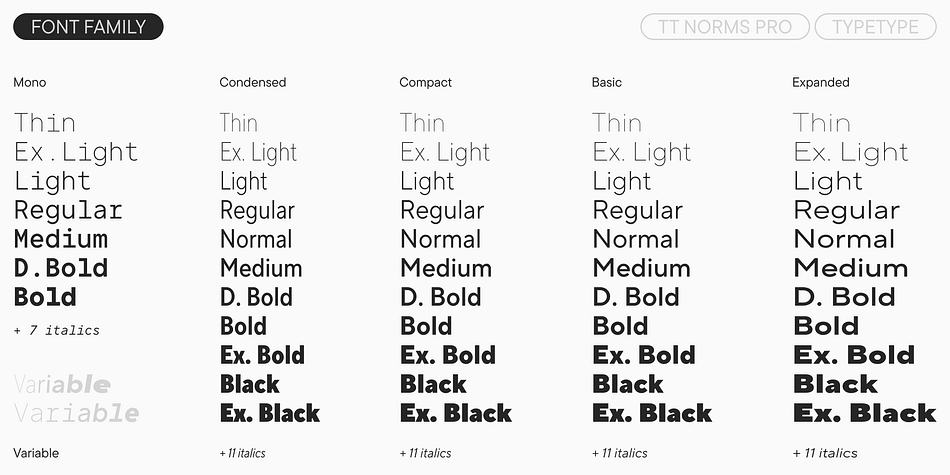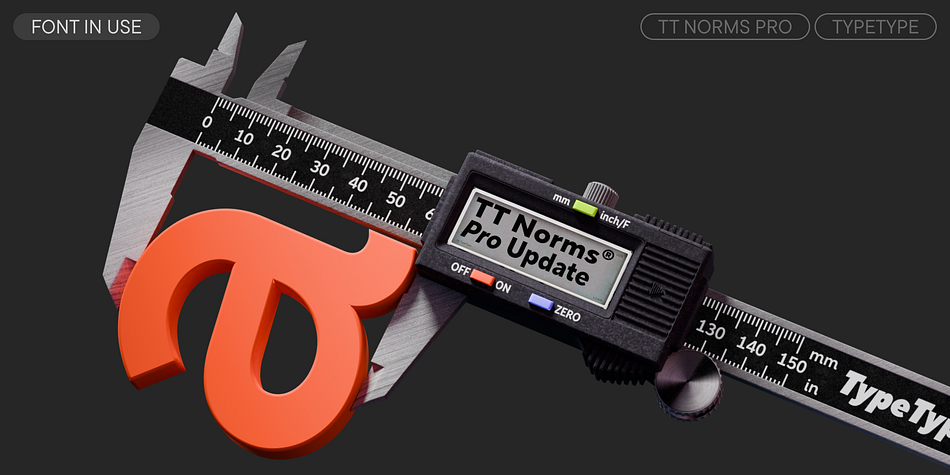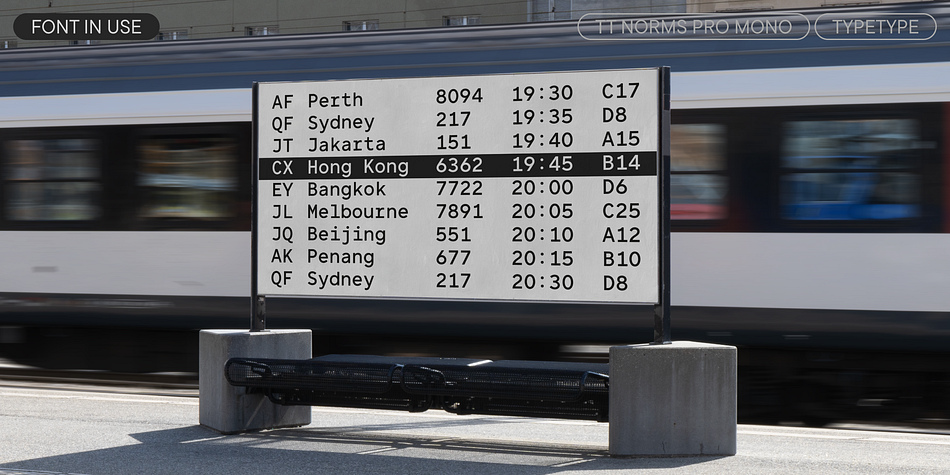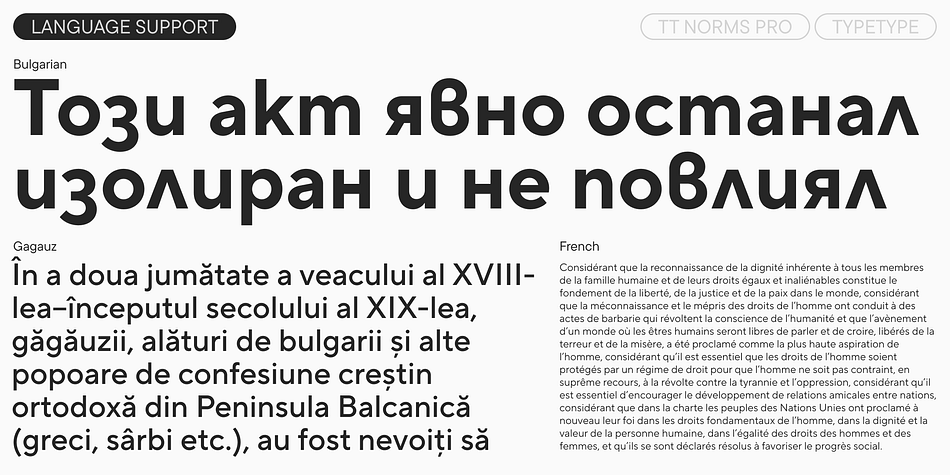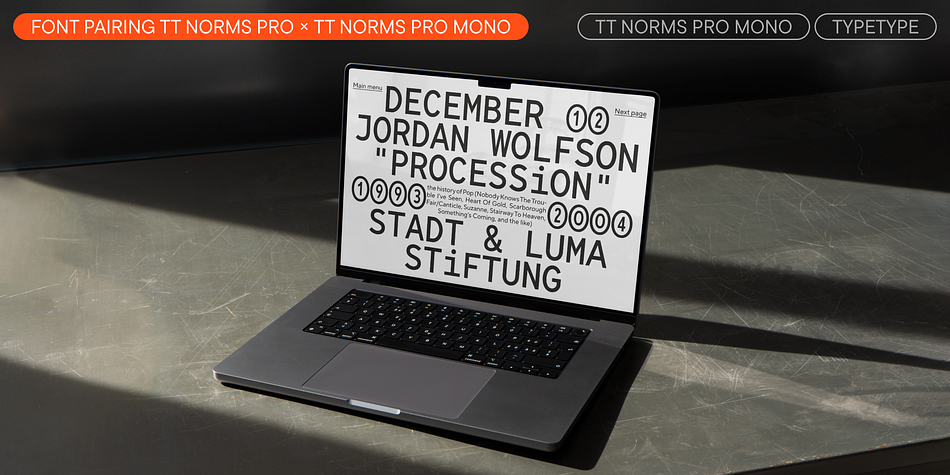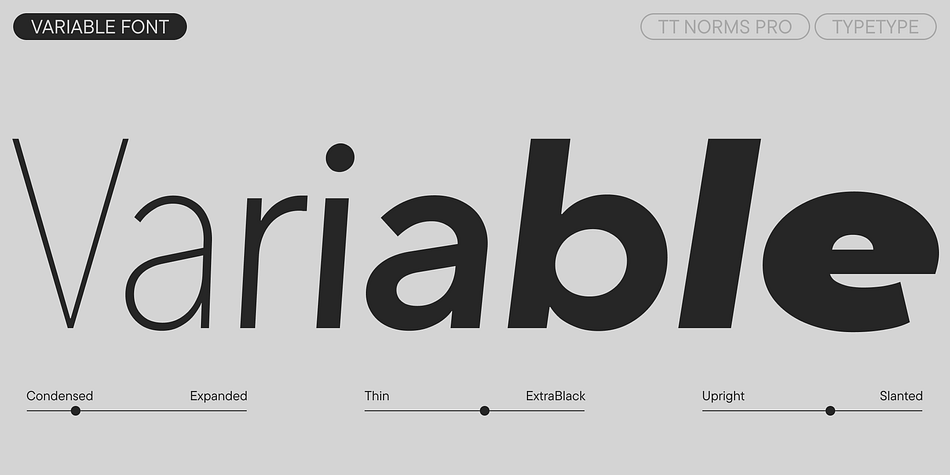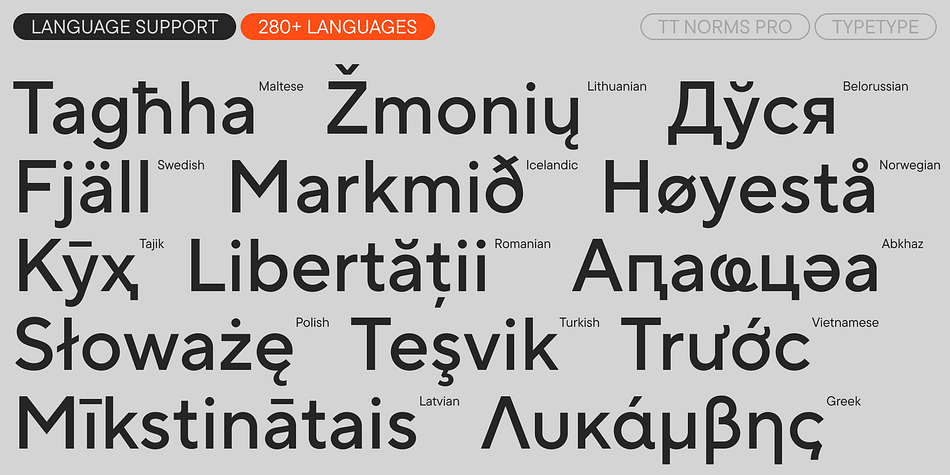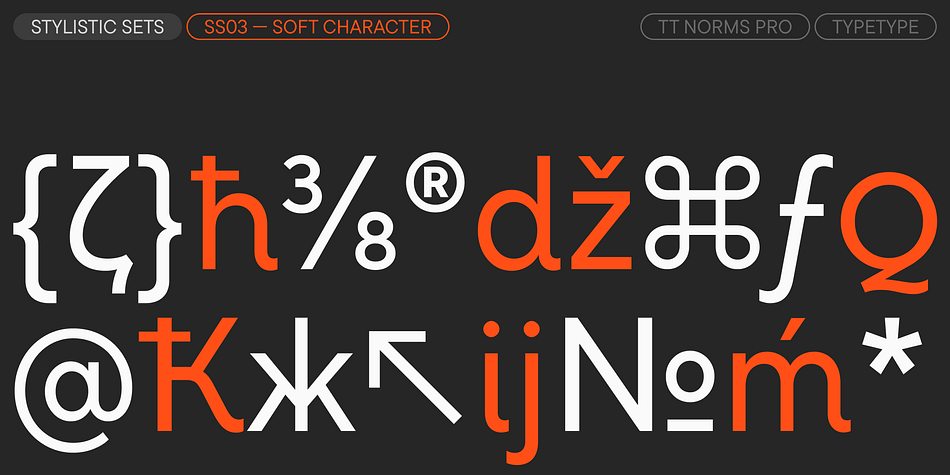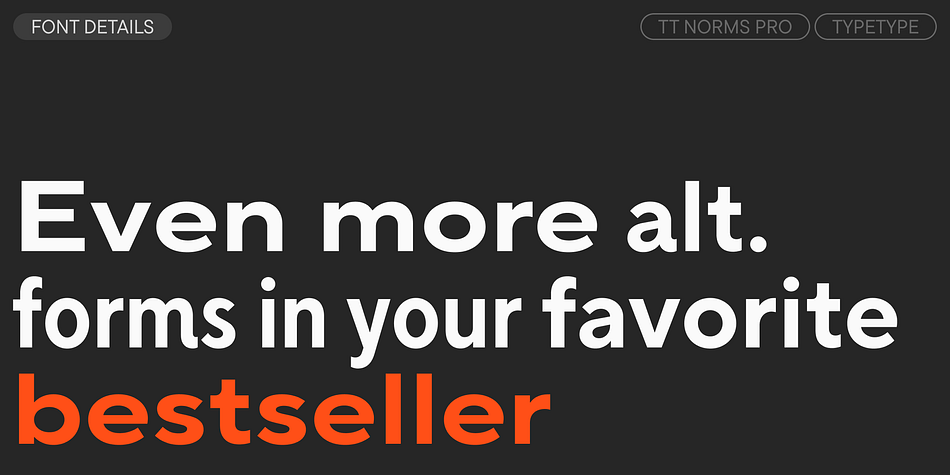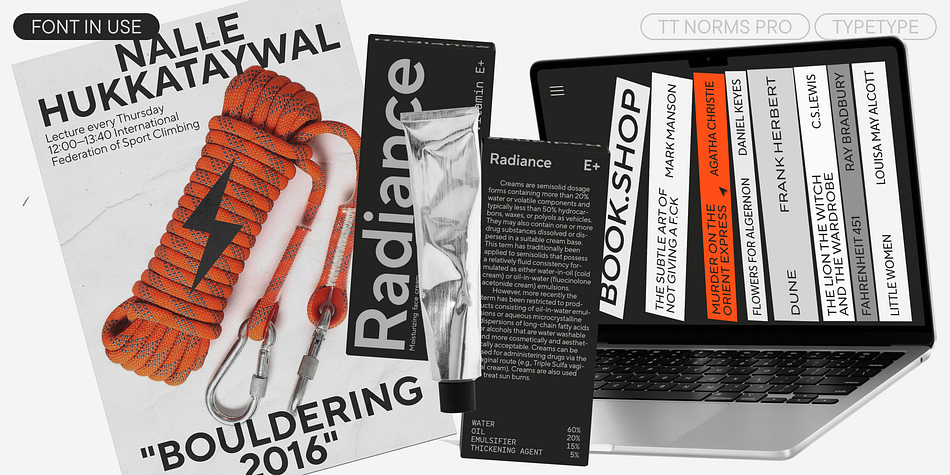
TT Norms® Pro
TT Norms® Pro is a sans serif font family. This typeface has one hundred and four styles and was published by Typetype.
Meet the enhanced TT Norms® Pro version 3.400! We’ve expanded the character set and updated the stylistic sets.
TT Norms® Pro is a functional geometric sans serif for aesthetic solutions, a bestseller from TypeType studio. It has enjoyed tremendous success since its release—and it’s no wonder! This is a stylish, elegant, and versatile typeface that will serve as a solid foundation for your collection.
On one hand, TT Norms® Pro is aesthetic and functional, which allows it to be used as an accent. On the other hand, the font is neutral enough to be the perfect “workhorse” that provides impeccable readability and creates consistent setting in running text. TT Norms® Pro is suitable for any field: streaming service or banking system, clothing brand or automotive industry. It’s equally convenient for use on the web or in printing.
Currently, the TT Norms® Pro family includes the most complete set of fonts, both in terms of styles and character set. Additionally, it’s the typeface with the most extensive language support in the TypeType collection.
The font includes several stylistic sets: various forms of slashed zeros, alternate forms for numbers 1, 3, 4, and the largest set—alternate forms for the characters “&”, “G”, “M”, “Q”, “Ж”, and “К” in all lettercases of Latin, Cyrillic, and Greek character sets (uppercase, lowercase, and small caps). We designed all these sets based on research: we identified which alternative forms are most popular among users and most frequently found in fonts. In particular, we were guided by requests for customization of such forms.
In version 3.400, we expanded the stylistic set with the alternative “u” by adding alternative branched leg forms for the characters “Kk”, “Q”, “R”, “d”, “h”, “i”, “m”, “n” from Latin and “Жж”, “Кк”, “Яя” from Cyrillic. This created a set that allows you to give the font a more ductile and elegant appearance.
TT Norms® Pro version 3.400 includes:
- 44 upright and 44 italic styles in TT Norms® Pro, 7 upright and 7 italic styles in TT Norms® Pro Mono, 2 variable fonts. TT Norms® Pro Variable font that changes along three parameters (weight, width, and slant) and TT Norms® Pro Mono Variable font that changes in weight and slant
- 2233 characters in each style, including an extended set of punctuation, symbols, and currencies
- 5 widths: TT Norms® Pro with classic proportions, monospaced TT Norms® Pro Mono, TT Norms® Pro Compact with more compact proportions, TT Norms® Pro Condensed with narrower proportions, and TT Norms® Pro Expanded with wider proportions
- 42 OpenType features, including a large number of ligatures, fractions, numerators, and denominators
- 20 stylistic sets
- Support for more than 280 languages, including new characters for French, Norwegian, Bulgarian, Uzbek, Abkhazian, and others
- Perfect kerning and manual TrueType hinting.
In addition to the TT Norms® Pro family, we created the serif typeface TT Norms® Pro Serif. They perfectly complement each other, forming a font pair.